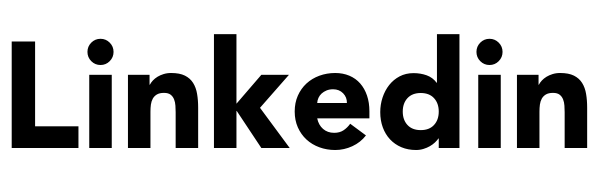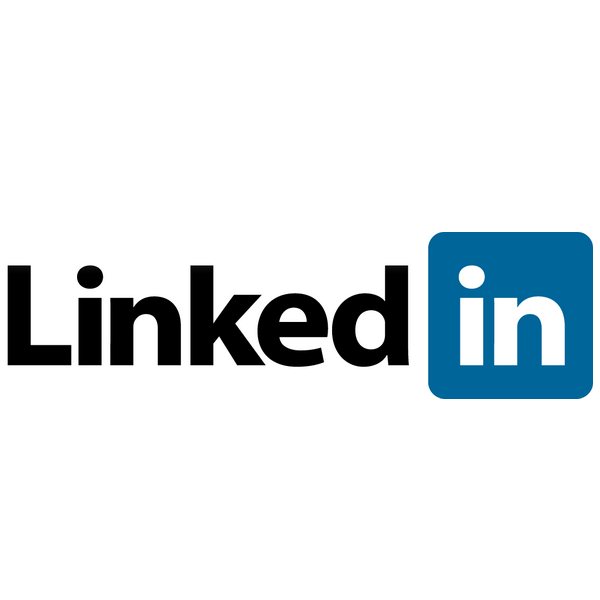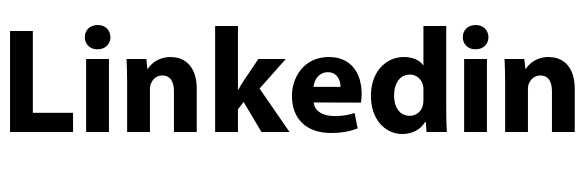
Linkedin Font
Fonts in UseLinkedin is a professional social networking platform where users can create a profile, connect with other professionals, showcase their skills and experiences, and find job opportunities.
Linkedin's current logo features a bold black logotype with the "in" portrayed in white within a blue rounded box. Previously, the font used was Myriad, but it was updated to the geometric sans Avenir Black in December 2012 or earlier. You can purchase and download Avenir Black here.